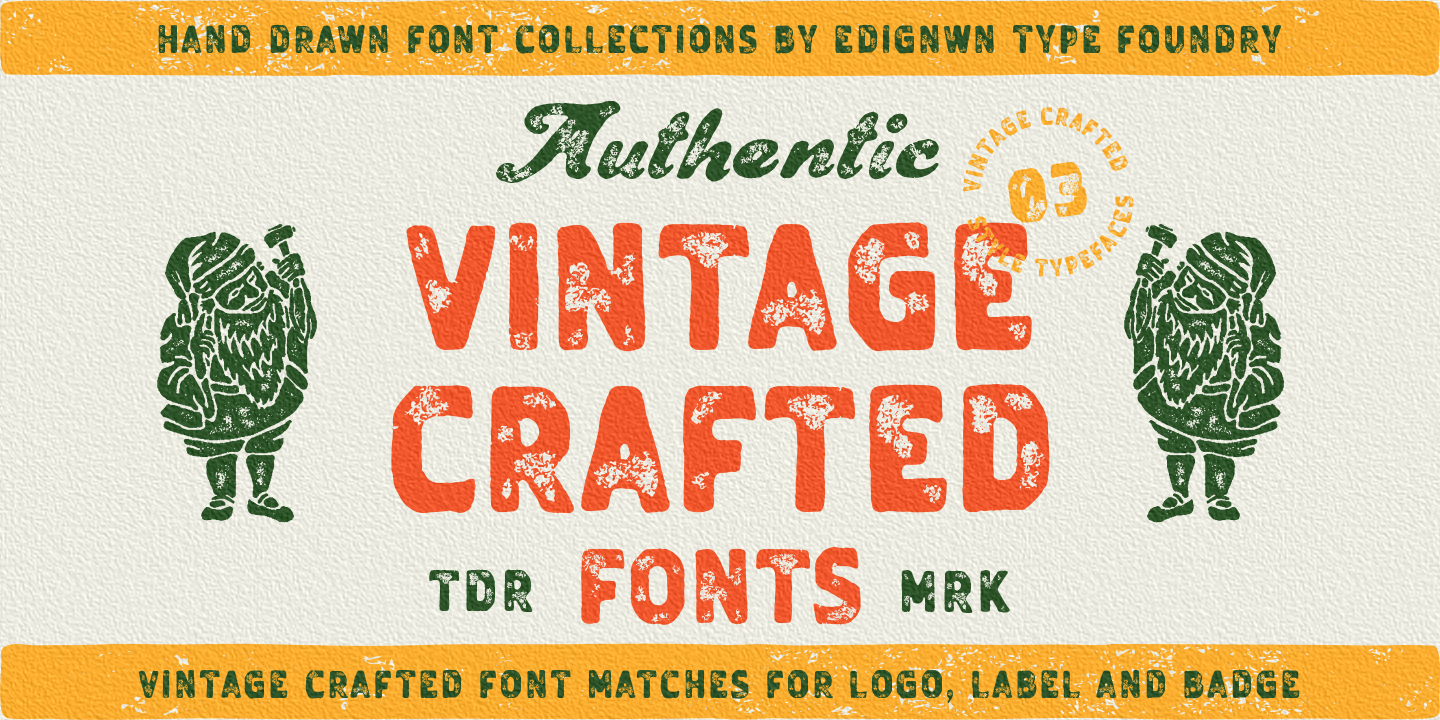
Vintage Crafted Font is perfect for antique furniture restoration branding, traditional blacksmith workshops, heritage brewery signage, artisanal woodworking studios, vintage motorcycle garage materials, old-fashioned barber shops, handcrafted leather goods packaging, and authentic craft distillery labels. This distinguished typeface brings old-world craftsmanship and artisanal heritage to any project requiring authentic vintage typography with traditional craftsmanship appeal and timeless maker quality.
What makes Vintage Crafted Font exciting is its perfect embodiment of traditional craftsmanship and artisanal heritage that captures the authentic spirit of hand-forged quality and time-honored making traditions passed down through generations. The font features weathered letterforms with handcrafted details and vintage character that reflect the personal touch of master craftsmen and the enduring quality of traditional hand-made goods. Its authentic vintage appeal and artisanal sophistication make it ideal for businesses celebrating traditional crafts, heritage techniques, and authentic maker culture. The typeface's crafted character ensures instant recognition of artisanal quality and traditional craftsmanship excellence.
The Vintage Crafted Font family includes Regular, Bold, Distressed, Condensed, and Ornamental variants, each maintaining the signature vintage craftsmanship while offering different expressions of traditional making and heritage authenticity. The family features craft symbols, maker elements, and traditional decorations that enhance its versatility for artisanal branding and heritage craft business applications. These variants provide comprehensive tools for creating authentic vintage typography with genuine craftsmanship character.
Whether you're designing for traditional craftsmen, heritage brands, or artisanal businesses, Vintage Crafted Font Free Download delivers the authentic craftsmanship that defines genuine vintage maker typography. Its combination of traditional heritage and artisanal quality makes it perfect for communicating craft excellence, heritage traditions, and authentic making with genuine Vintage Crafted Font Free Download character and timeless artisanal sophistication.